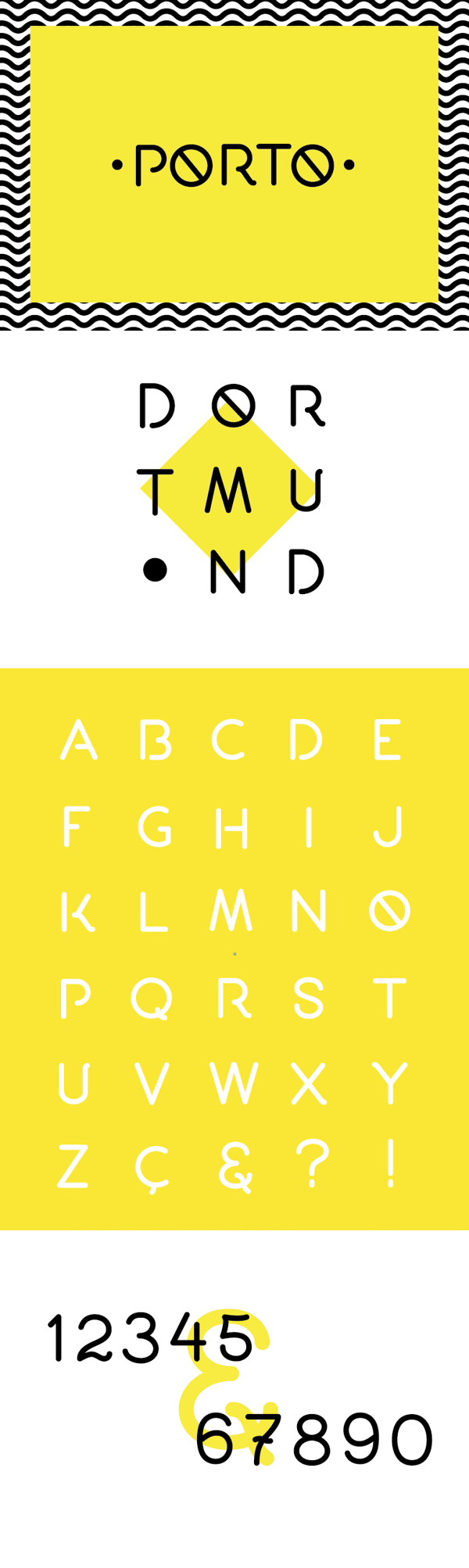
Porto font is a roundish free font that you can download for free. This font was initially created for a logo but it didn’t turn out what was needed, so the designer, UPPERTYPE, made this into a free font.
Designer: UPPERTYPE